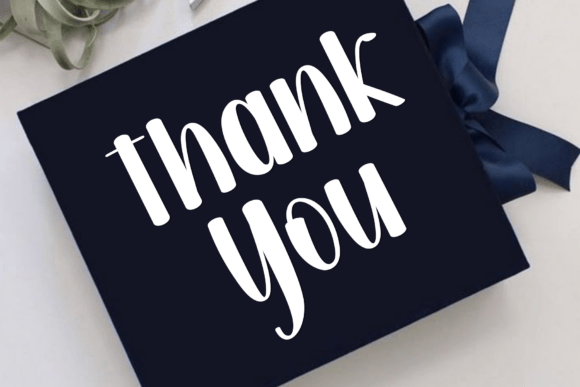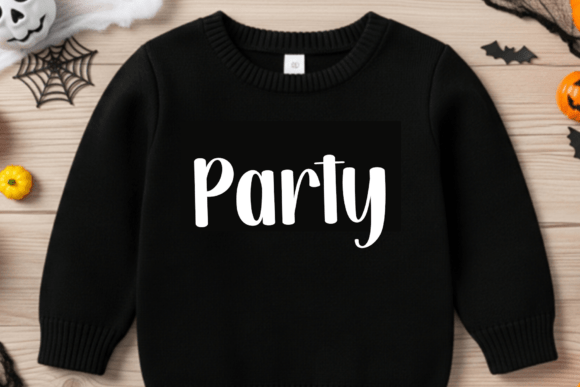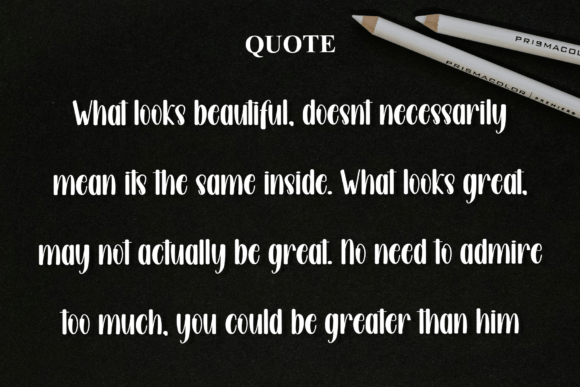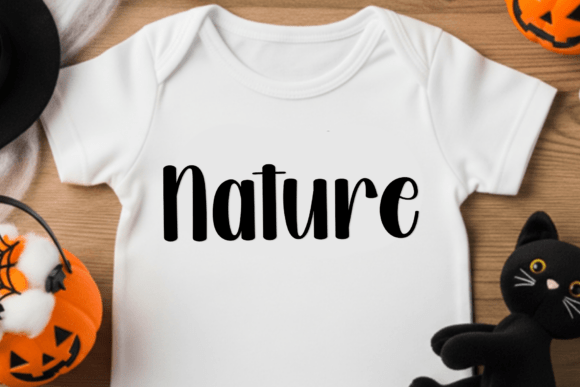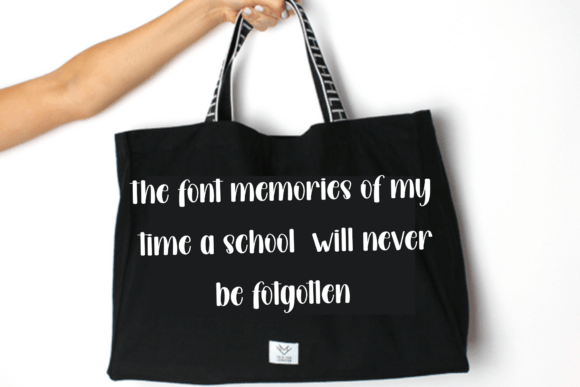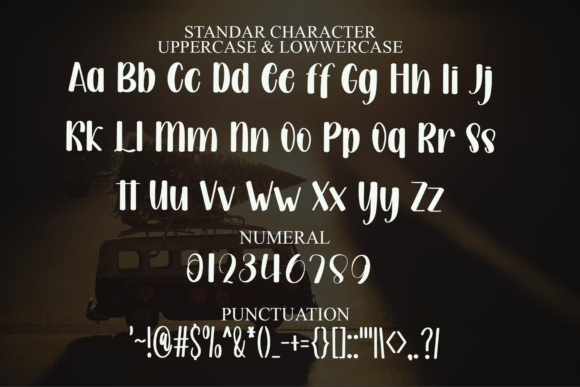
Introducing Farmhouse Financial Font: The Perfect Blend of Casual and Creative
Are you a designer, crafter, or DIY enthusiast looking for a font that exudes warmth and friendliness? Look no further than Farmhouse Financial Font! This charming, hand-drawn font is perfect for personal projects, invitations, social media graphics, and more. In this article, we’ll dive into the features and benefits of Farmhouse Financial Font and explore how it can elevate your designs.
The Characteristics of Farmhouse Financial Font
Farmhouse Financial Font is a casual and creative font that boasts round, playful strokes, creating a relaxed and approachable feel. Its unique, hand-drawn aesthetic adds a fun and distinctive touch to any design, making it perfect for those who want to add a personal touch to their projects. The font’s charming and friendly vibe makes it ideal for designs that require a warm and inviting tone.
Key Features of Farmhouse Financial Font
- Hand-Drawn Aesthetic: The font’s charming, hand-drawn aesthetic adds a unique and creative touch to any design.
- Casual and Playful: Farmhouse Financial Font features round, playful strokes that create a relaxed and approachable feel.
Use Cases for Farmhouse Financial Font
Farmhouse Financial Font is versatile and can be used for a variety of design projects, including:
- Personal Projects: Use Farmhouse Financial Font to add a personal touch to your personal projects, such as photo albums, scrapbooking, and DIY crafts.
- Invitations: Create beautiful and unique invitations for special occasions, such as weddings, birthdays, and baby showers.
- Social Media Graphics: Use Farmhouse Financial Font to create engaging and eye-catching social media graphics, such as quotes, posters, and flyers.
- Branding: Farmhouse Financial Font can also be used for branding purposes, such as creating logos, business cards, and letterheads.
Benefits of Using Farmhouse Financial Font
Farmhouse Financial Font offers several benefits to designers and crafters, including:
- Unique and Creative: Farmhouse Financial Font offers a unique and creative touch to any design, setting it apart from more traditional fonts.
- Easy to Read: The font’s playful strokes and rounded edges make it easy to read, even at smaller font sizes.
- Versatile: Farmhouse Financial Font can be used for a variety of design projects, from personal projects to commercial branding.
Tips for Using Farmhouse Financial Font
Here are some tips for using Farmhouse Financial Font effectively:
- Pair with Other Fonts: Experiment with pairing Farmhouse Financial Font with other fonts to create a unique and visually appealing design.
- Use for Headings and Titles: Use Farmhouse Financial Font for headings and titles to add a creative and playful touch to your design.
- Experiment with Colors: Try out different color combinations to find the perfect match for your design.
Farmhouse Financial Font is a charming and creative font that exudes warmth and friendliness. Its unique, hand-drawn aesthetic and playful strokes make it perfect for personal projects, invitations, social media graphics, and more. With its PUA Encoded glyphs and compatibility with various application engines, Farmhouse Financial Font is a versatile and easy-to-use font that can elevate your designs. Whether you’re a designer, crafter, or DIY enthusiast, Farmhouse Financial Font is a great addition to your font collection.